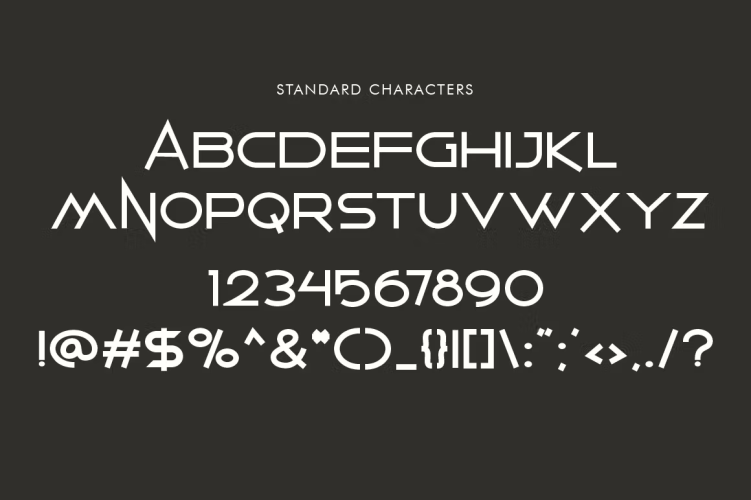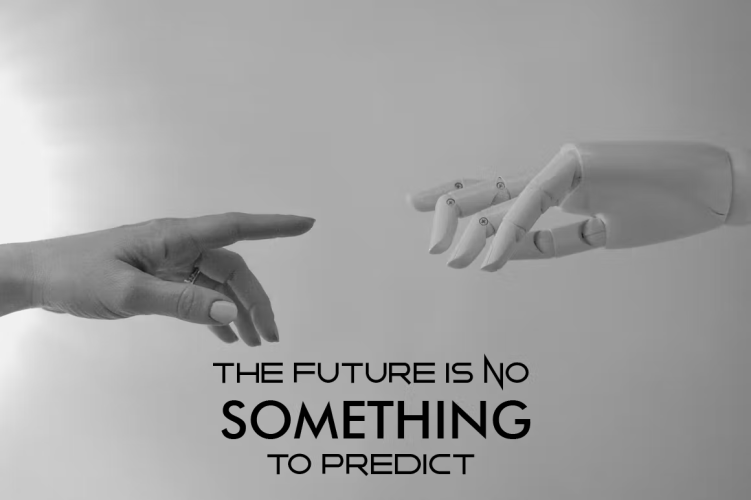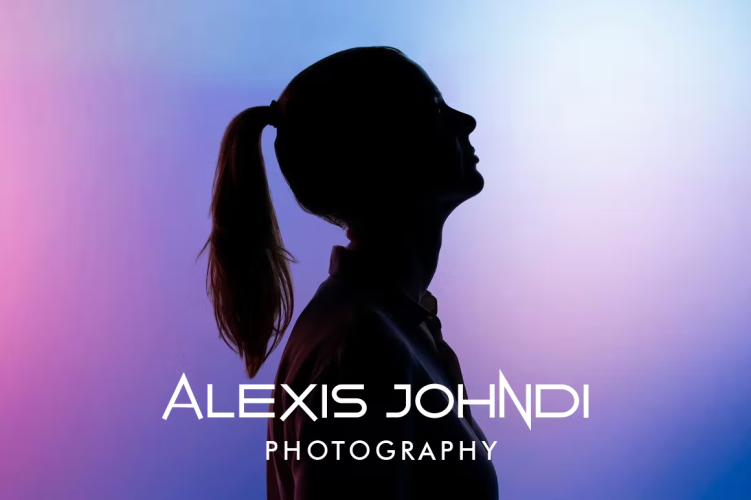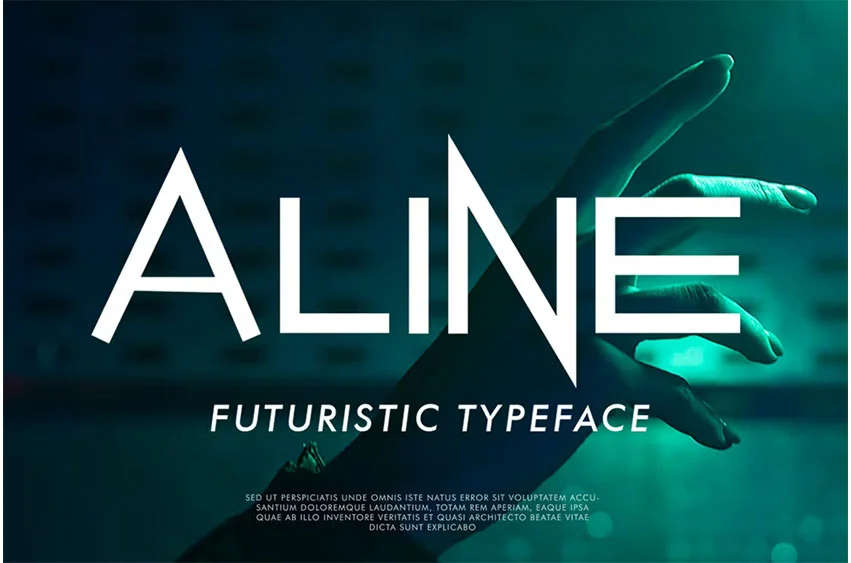
Aline Font
Aline Font is a sans based font with unique uppercase that will make your design looks futuristic and modern. You can use this font for any purpose, especially to make logotype.
Where Aline Font works best
Aline Font stays legible at small sizes, which makes it a strong choice for navigation, buttons and dashboards in web design and app interfaces.
Clean sans serifs like Aline Font are the default language of SaaS, fintech and product branding.
What is Aline Font good for?
Aline Font is a Sans Serif Fonts typeface tagged Modern, Professional, Sans Serif, Sans Serif Fonts. It works well for headlines, logos, posters, social media graphics and branding projects that need a distinctive sans serif fonts look.